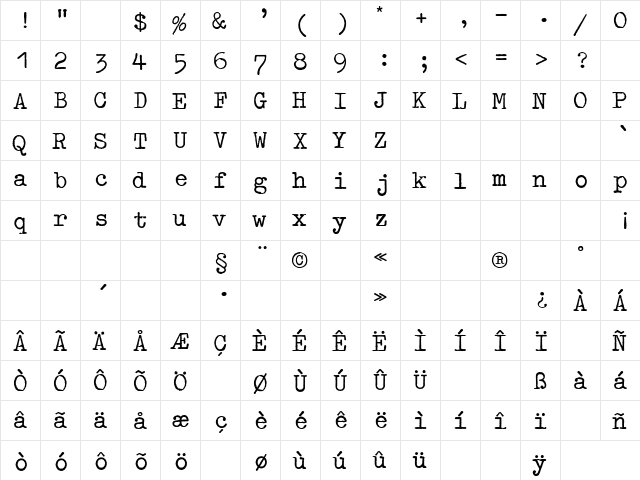
OldTypewriterBold Regular Font Preview
Design Context for OldTypewriterBold Typeface
OldTypewriterBold brings the precise, column-aligned rhythm of monospaced typography to designs that value technical clarity and systematic order. The heavy weight commands attention and anchors typographic hierarchies.
Well-suited to data-driven dashboards, coding tutorials, and any design that wants to reference the world of programming.
Pro Tip: Use OldTypewriterBold with slightly increased line-height for extended reading — fixed-width spacing can feel dense in longer passages without extra breathing room.